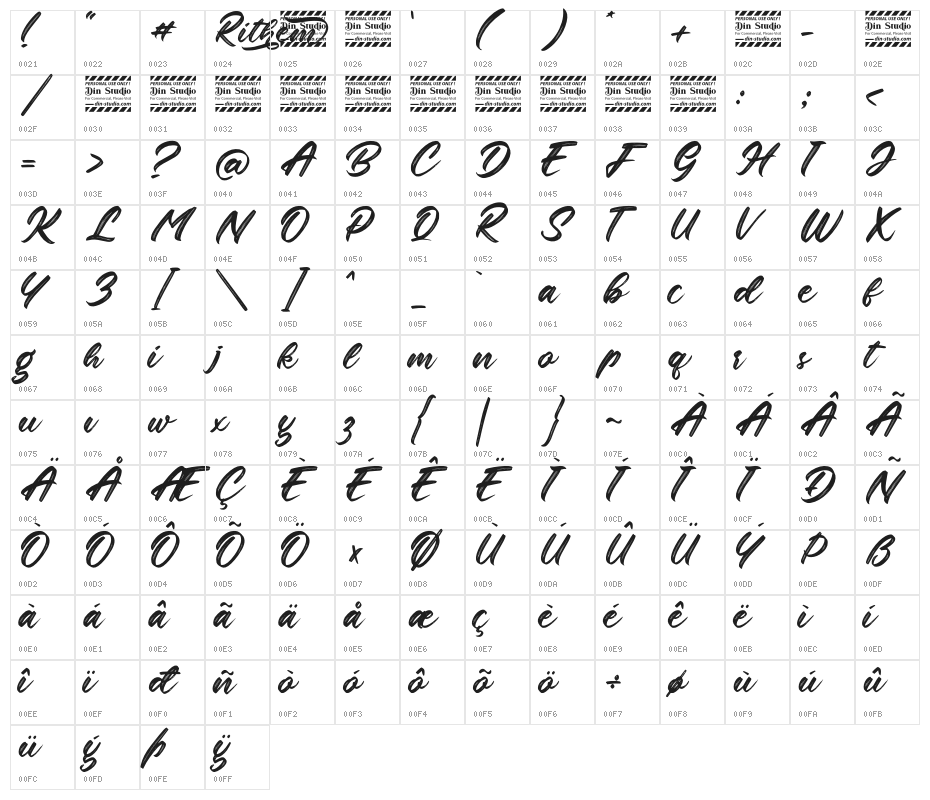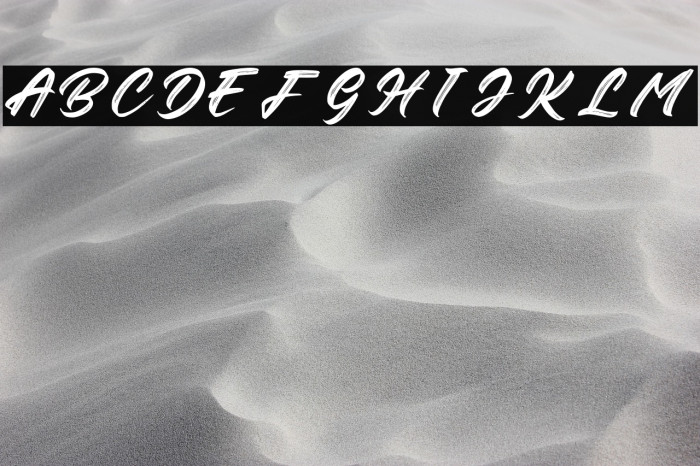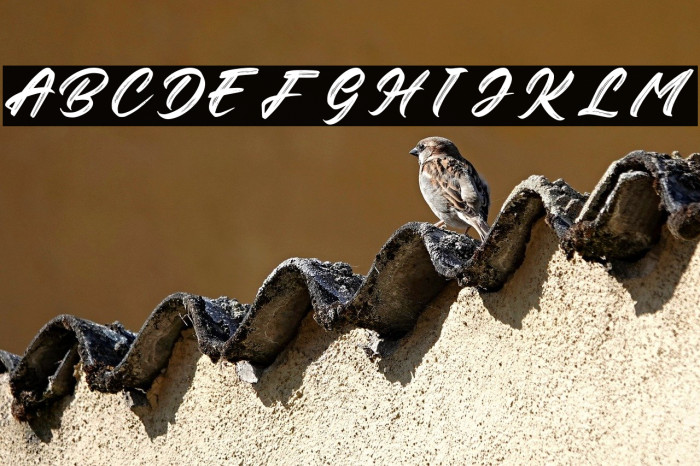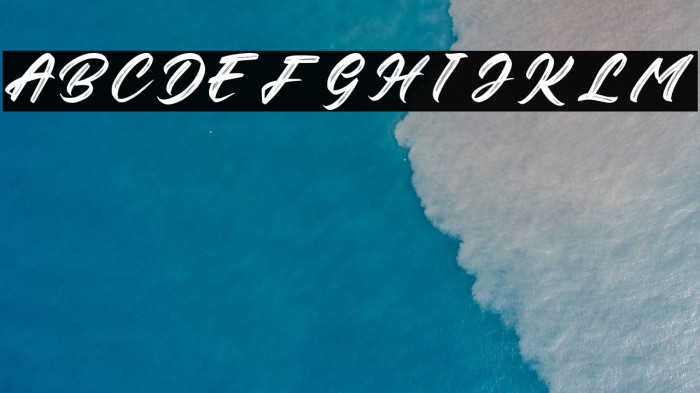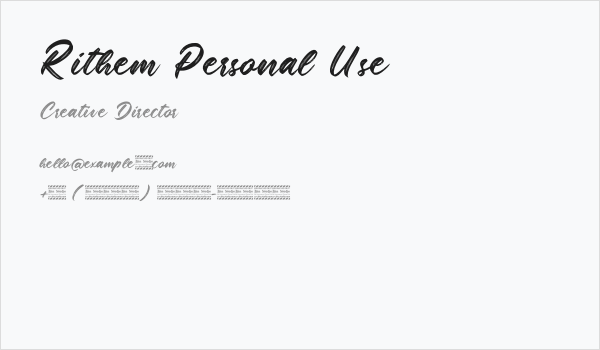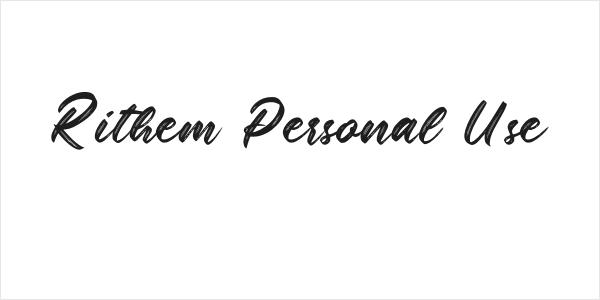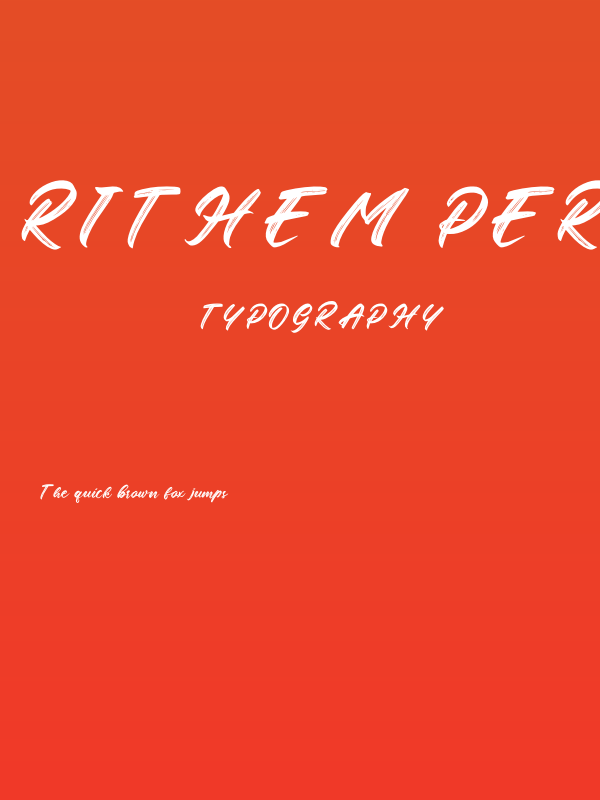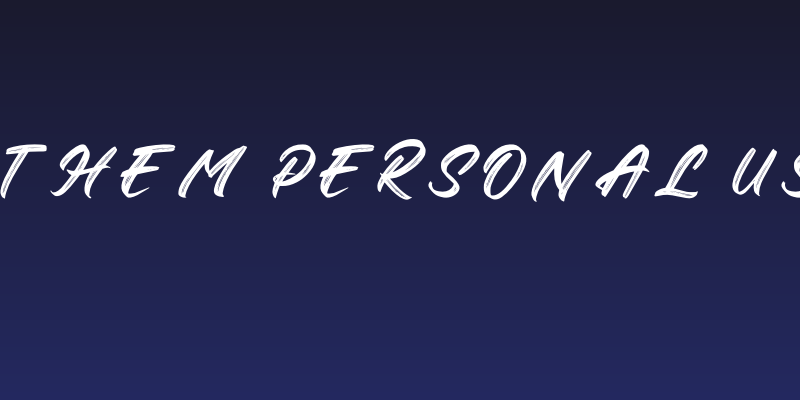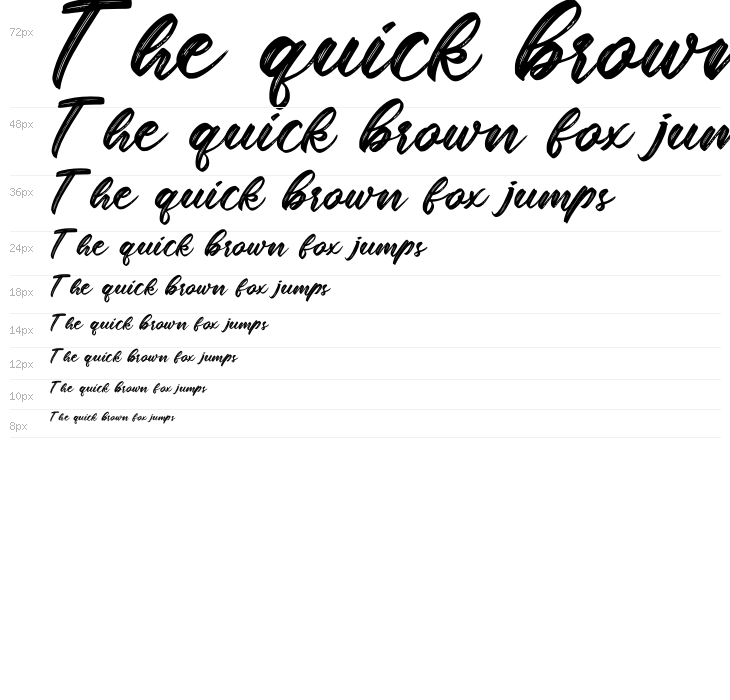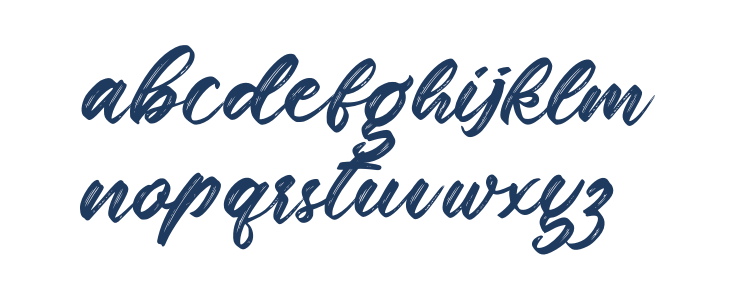
Rithem Personal Use Font
Rithem Personal Use Description
This font features a dynamic and expressive script style, characterized by its fluid, cursive strokes and elegant flow. The uppercase letters exhibit a graceful yet bold presence, while the lowercase letters maintain a consistent, flowing rhythm. The font's design incorporates a brush-like texture, adding a handcrafted feel that enhances its artistic appeal. The characters are slightly slanted, contributing to a sense of movement and energy. This font is well-suited for creative projects that require a personal touch, such as invitations, greeting cards, and branding materials.